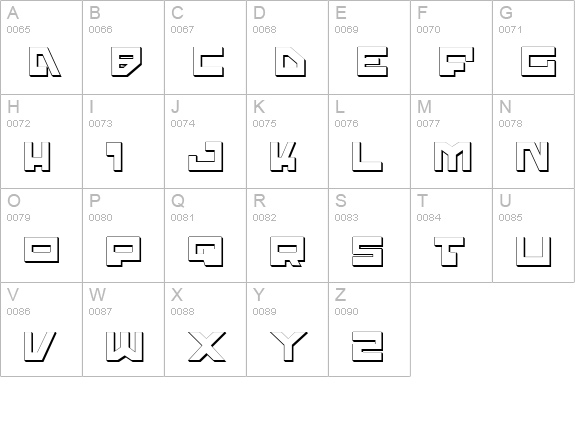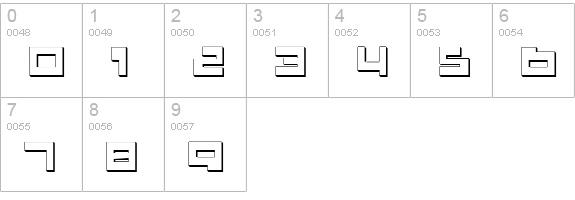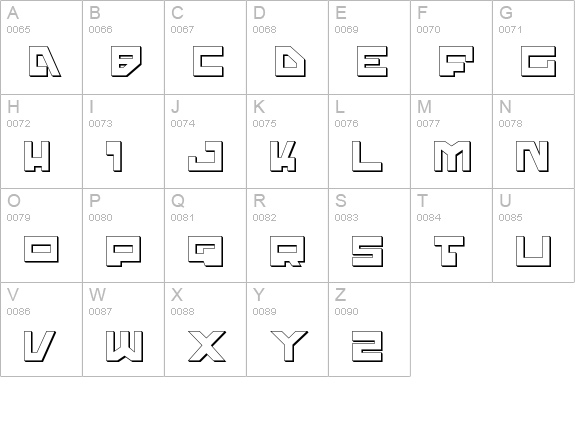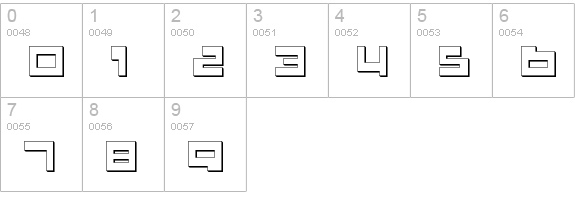
Introducing Trajia Shadow font, a stunning display typeface that exudes elegance and sophistication. This unique font features intricate shadow detailing that adds depth and dimension to your designs, making them truly stand out. With its sleek lines and modern aesthetic, Trajia Shadow is perfect for creating eye-catching headlines, logos, and branding materials. The best part? Trajia Shadow is available for free download at FontsMarket.com, allowing you to add this exceptional font to your collection without any cost. Whether you're a designer looking to elevate your projects or a creative individual seeking a stylish font for personal use, Trajia Shadow is sure to impress with its versatility and impact. Download it today and unleash your creativity with this remarkable typeface.